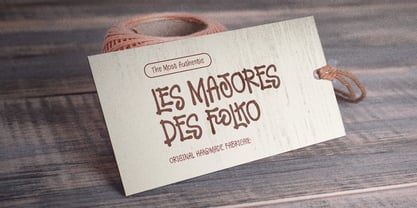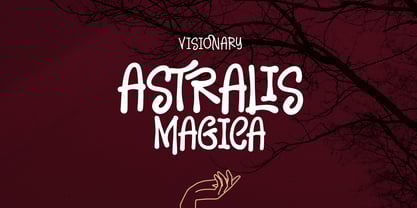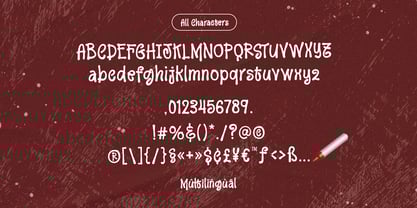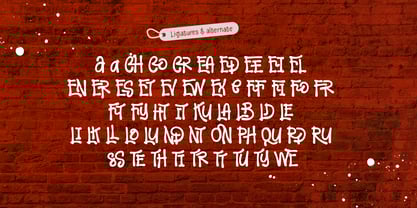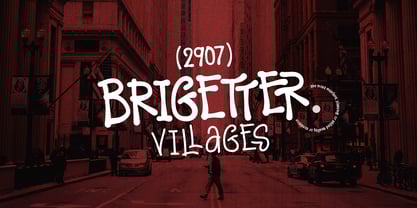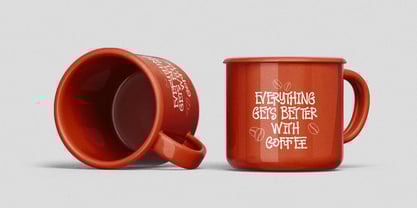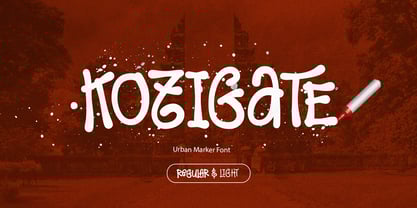
Kozigate
by Grontype
The Kozigate Font Family was designed by Jarnawi Saja and published by Grontype. Kozigate contains 2 styles and family package options.
Kozigate is a modern and stylish decorative urban marker font that brings a bold, expressive character to your designs. With its unique handwritten flow and urban-inspired strokes, Kozigate delivers a contemporary and authentic street-style vibe. Equipped with a wide range of creative ligature pairs, this font adds a natural and dynamic touch to every word. Perfect for headers, social media quotes, posters, or branding projects, Kozigate is the ideal choice to make your message stand out with confidence and personality. Features: * Unique Marker Font * Uppercase & Lowercase * Expressive Ligatures * Basic Latin Glyphs * Modern and Stylish * Numeral and Punctuation * Currencies * Multilingual Support Thankyou for picking up this font, hope you enjoy it.